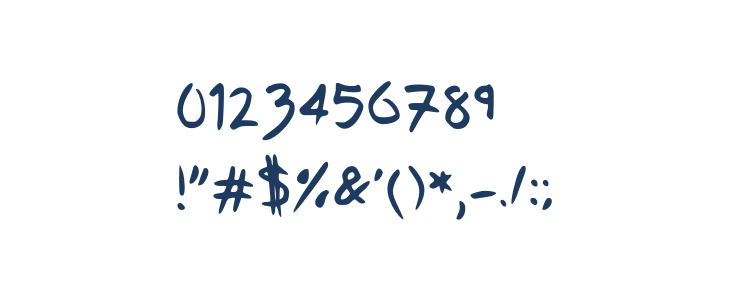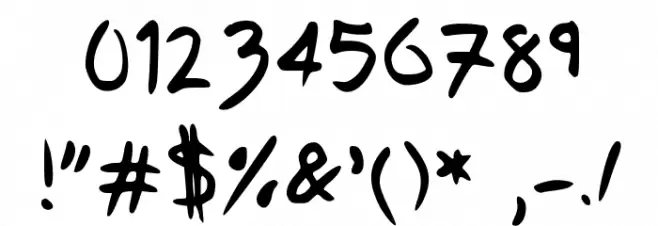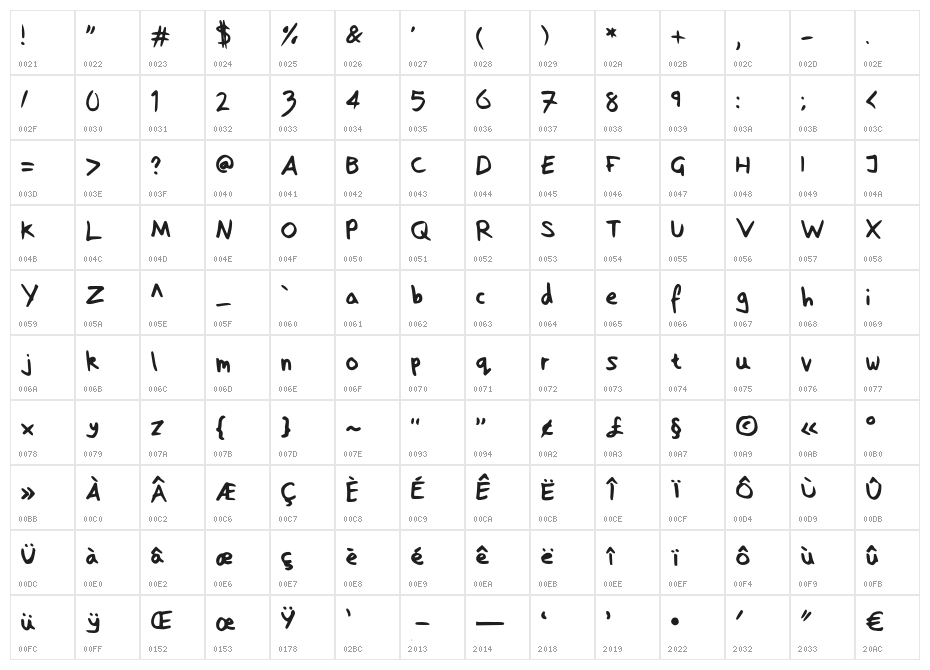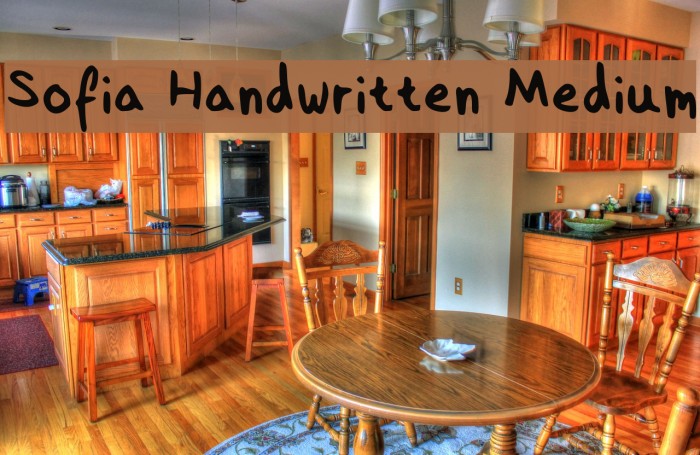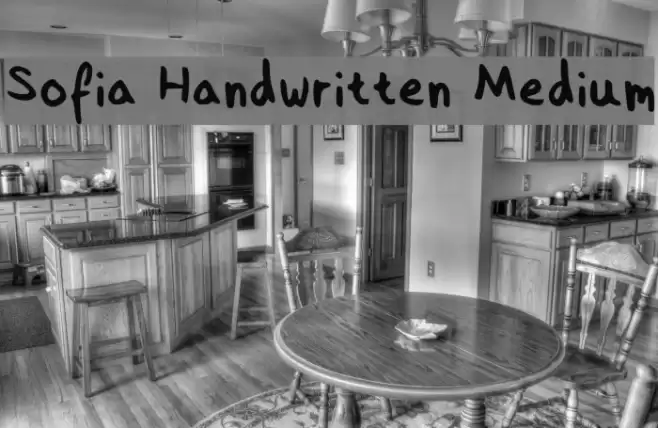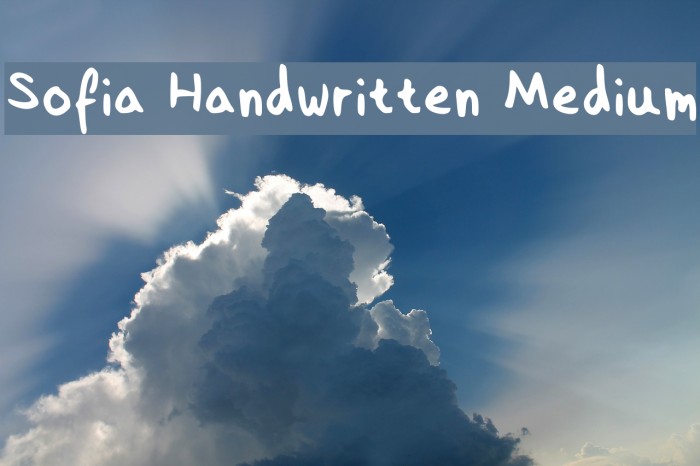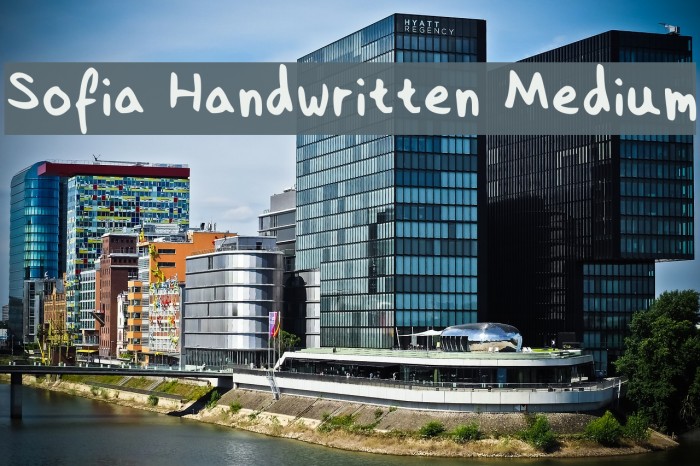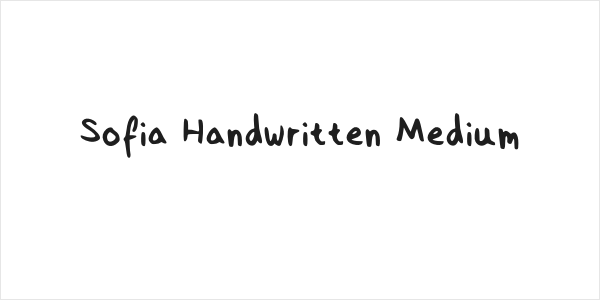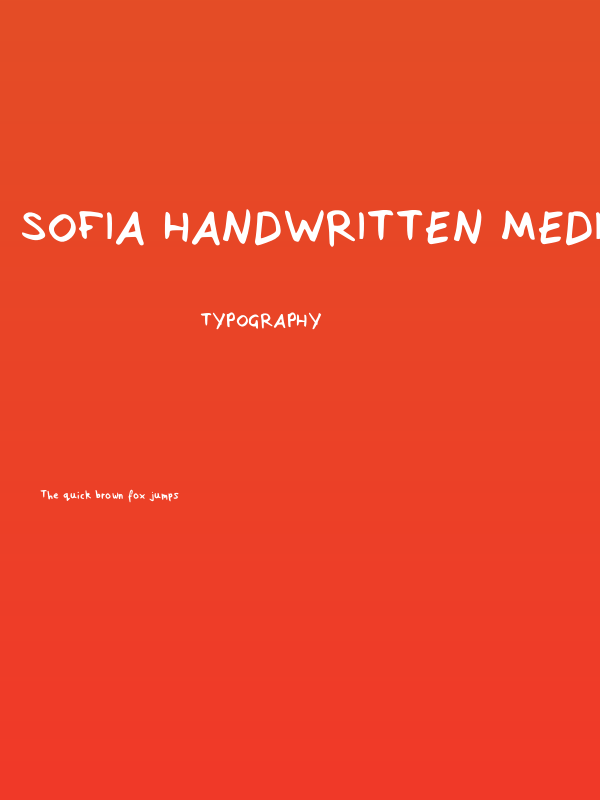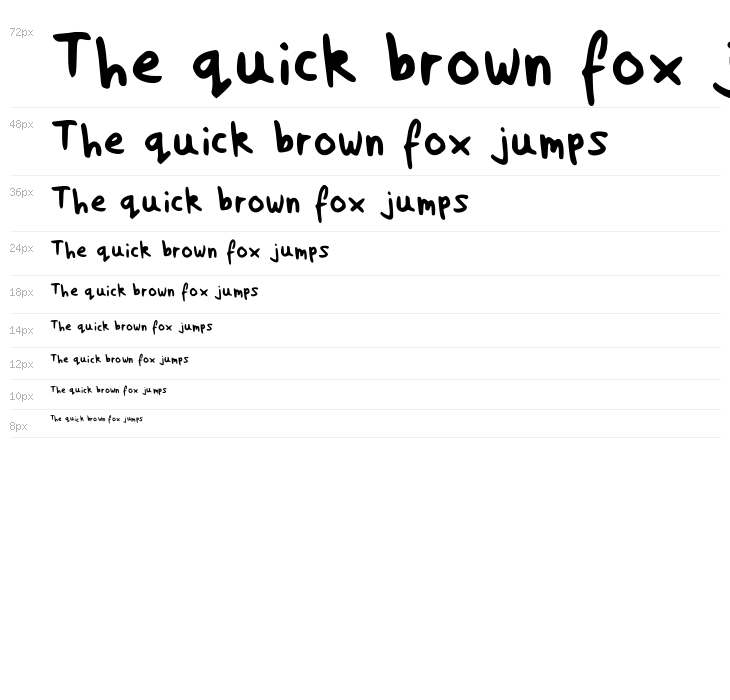
Sofia Handwritten Medium Font
Sofia Handwritten Medium Description
This font exhibits a playful and casual handwritten style, characterized by its irregular and organic letterforms. The strokes are bold and rounded, giving it a friendly and approachable appearance. The uppercase and lowercase letters maintain a consistent style, with a slight slant that adds to its informal charm. The numerals and special characters are crafted with the same playful touch, ensuring uniformity across the character set. This font is ideal for projects that require a personal and human touch, such as greeting cards, invitations, and informal branding.
| Use Case | Headlines, Informal text, Personal projects |
| Proposed Projects | Greeting cards, invitations, informal branding, children's books, and personal blogs. |